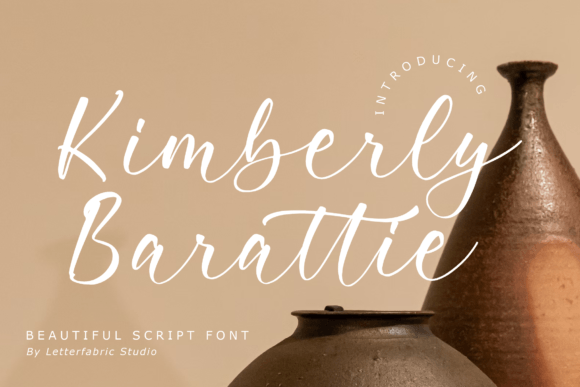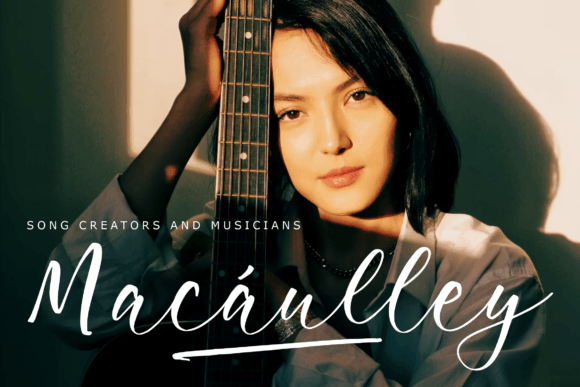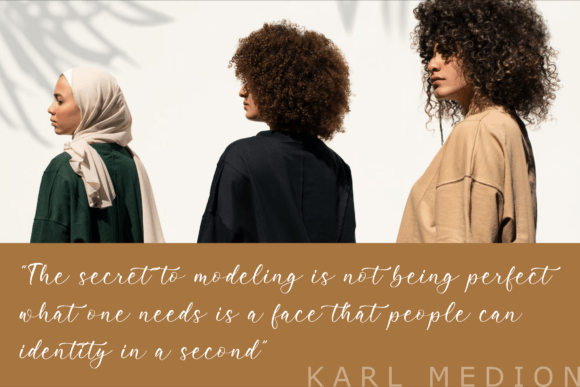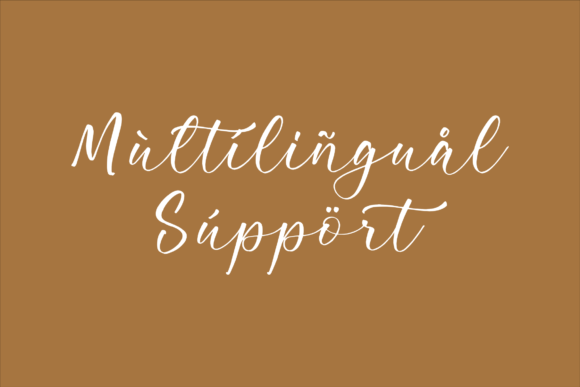
Add elegance and charm to your designs with the Kimberly Barattie font. This beautiful script font is suitable for a wide range of creative projects. Its graceful style adds a refined touch to any design.
The Kimberly Barattie font is perfect for logos and branding projects. It enhances homeware designs, product packaging, mugs, and other merchandise with its sophisticated handwriting style. The font’s flowing strokes create a professional and elegant look.
You can also use the Kimberly Barattie font for quotes, posters, shopping bags, t-shirts, and book covers. Additionally, it works well for name cards, invitation cards, greeting cards, labels, and photography watermarks. This font shines in special events and many other creative applications.
Despite its delicate script style, the Kimberly Barattie font maintains excellent readability. Whether used for large headlines or smaller text, it adds clarity and elegance to your work.
Using the Kimberly Barattiefont will elevate your creative projects by providing a timeless and graceful script style. If you want a versatile and elegant font for your designs, this font is a great choice.
In summary, the Kimberly Barattiefont is a beautiful and versatile script font. From branding and packaging to invitations and merchandise, it delivers style and sophistication. Download it today and bring a refined script touch to your projects with Kimberly Barattie.